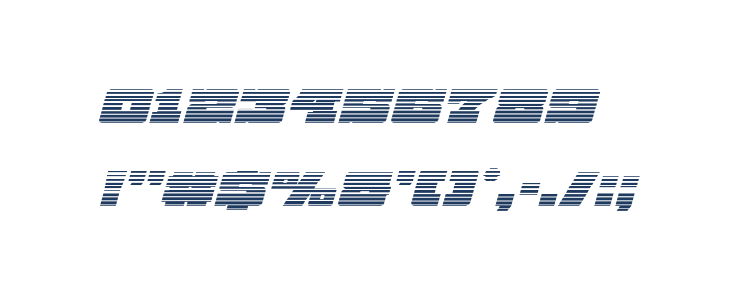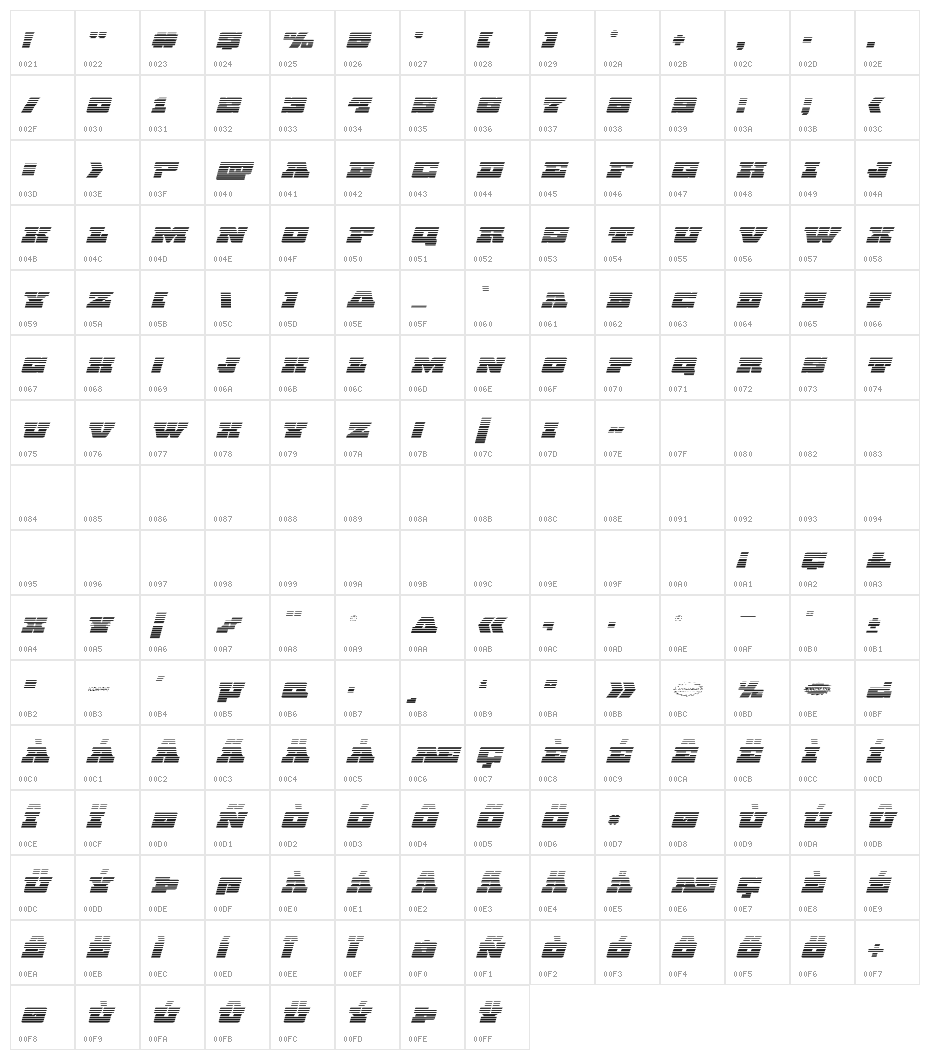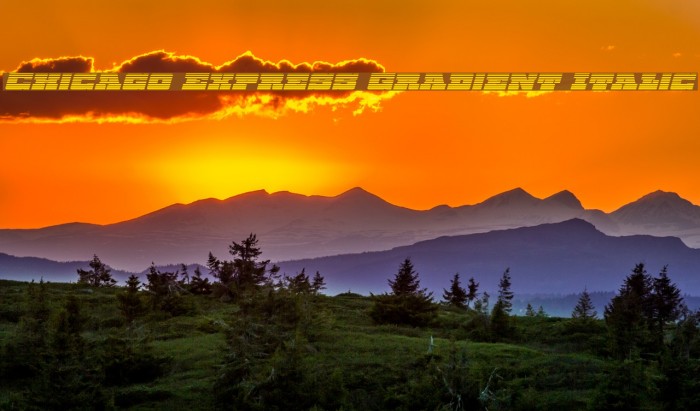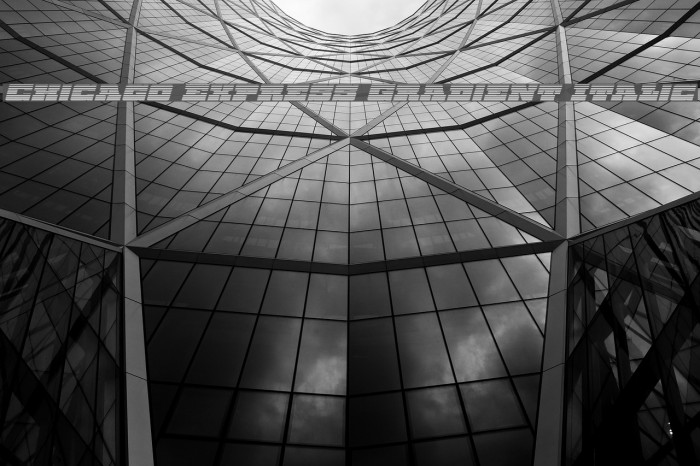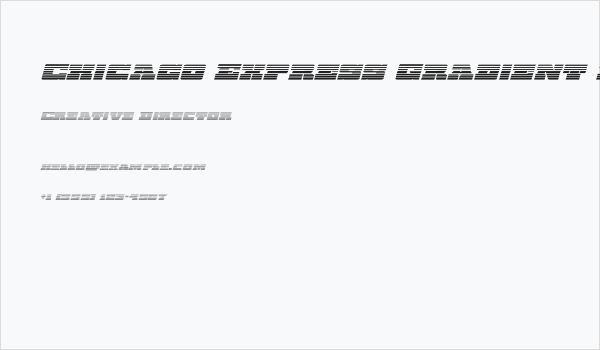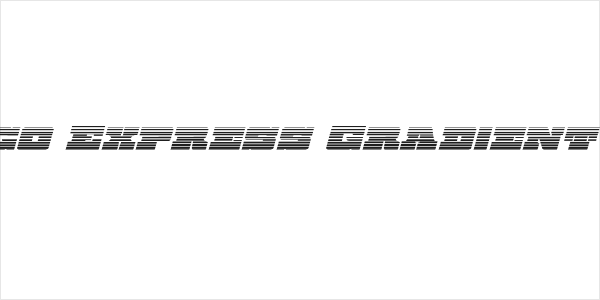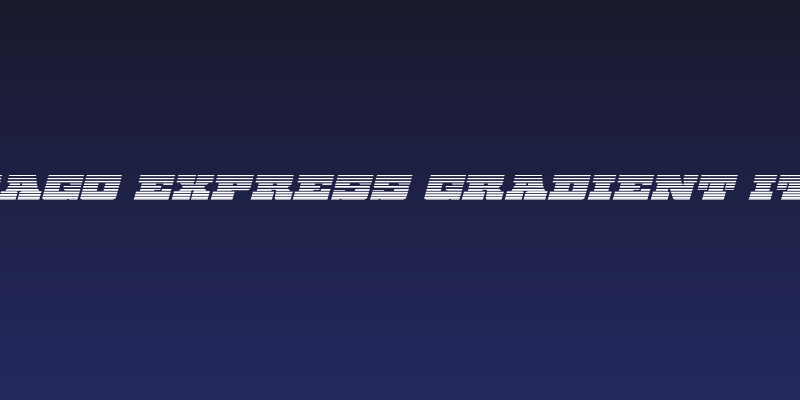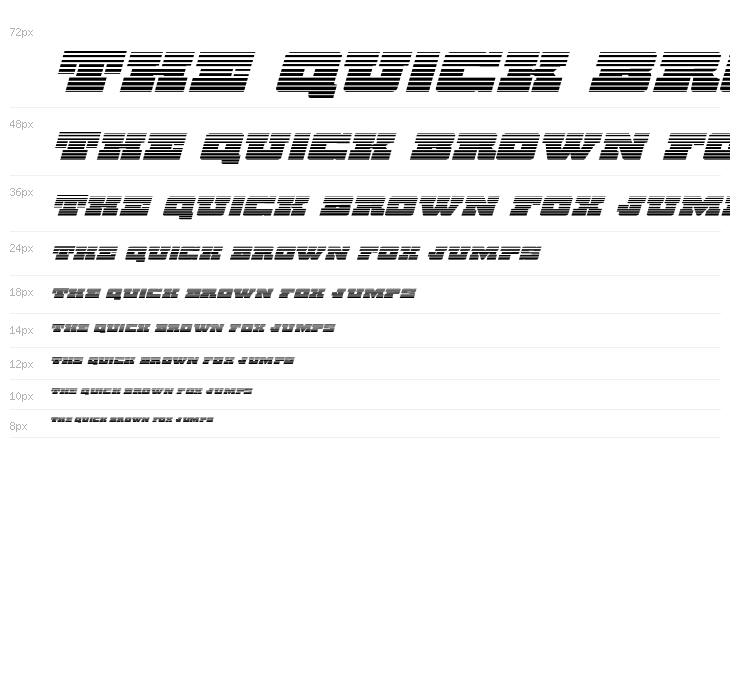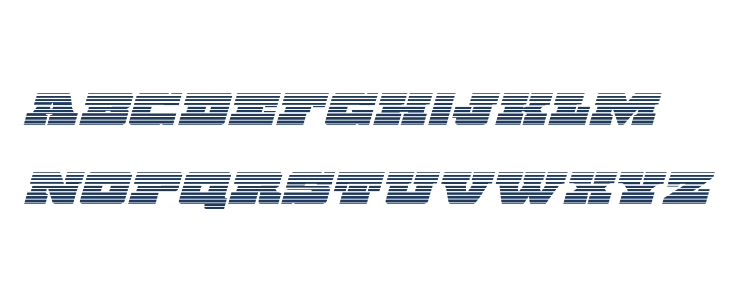
Chicago Express Gradient Italic Font
Chicago Express Gradient Italic Description
This font features a bold, italicized style with a distinctive gradient effect created by horizontal lines that give it a dynamic, fast-paced appearance. The characters are wide and have a futuristic, digital feel, making them stand out with a unique visual impact. The uppercase and lowercase letters maintain a consistent design, while the numbers and special characters complement the overall aesthetic. This font is ideal for projects that require a modern and energetic look, such as sports branding, technology-focused designs, or any creative work that aims to convey speed and innovation.
| Proposed Projects | Ideal for sports branding, tech designs, and creative projects emphasizing speed and innovation. |